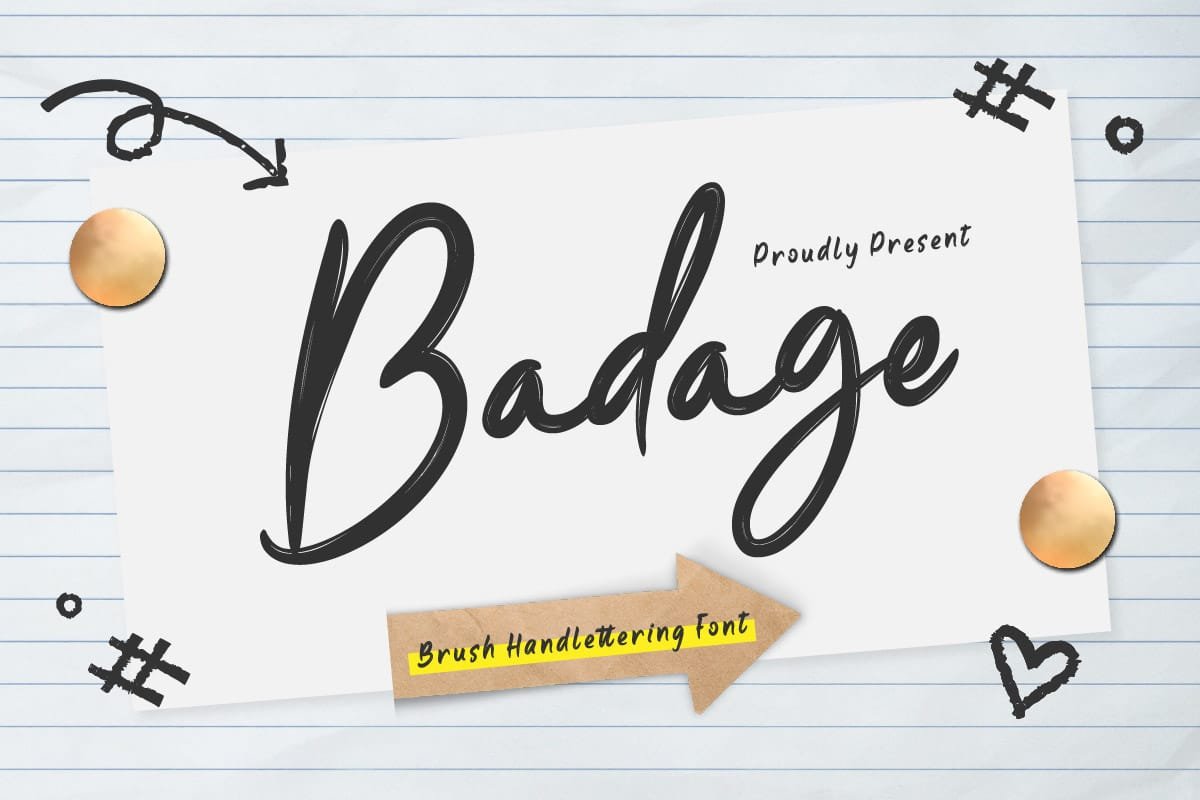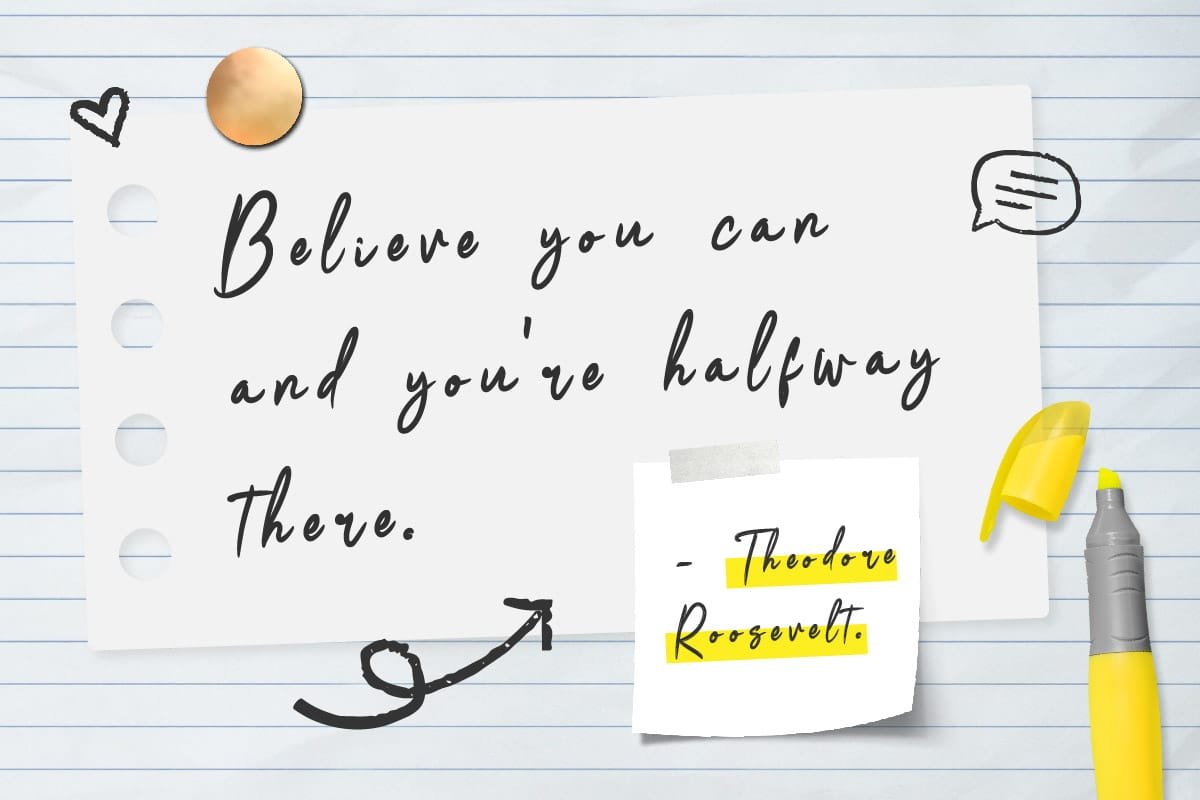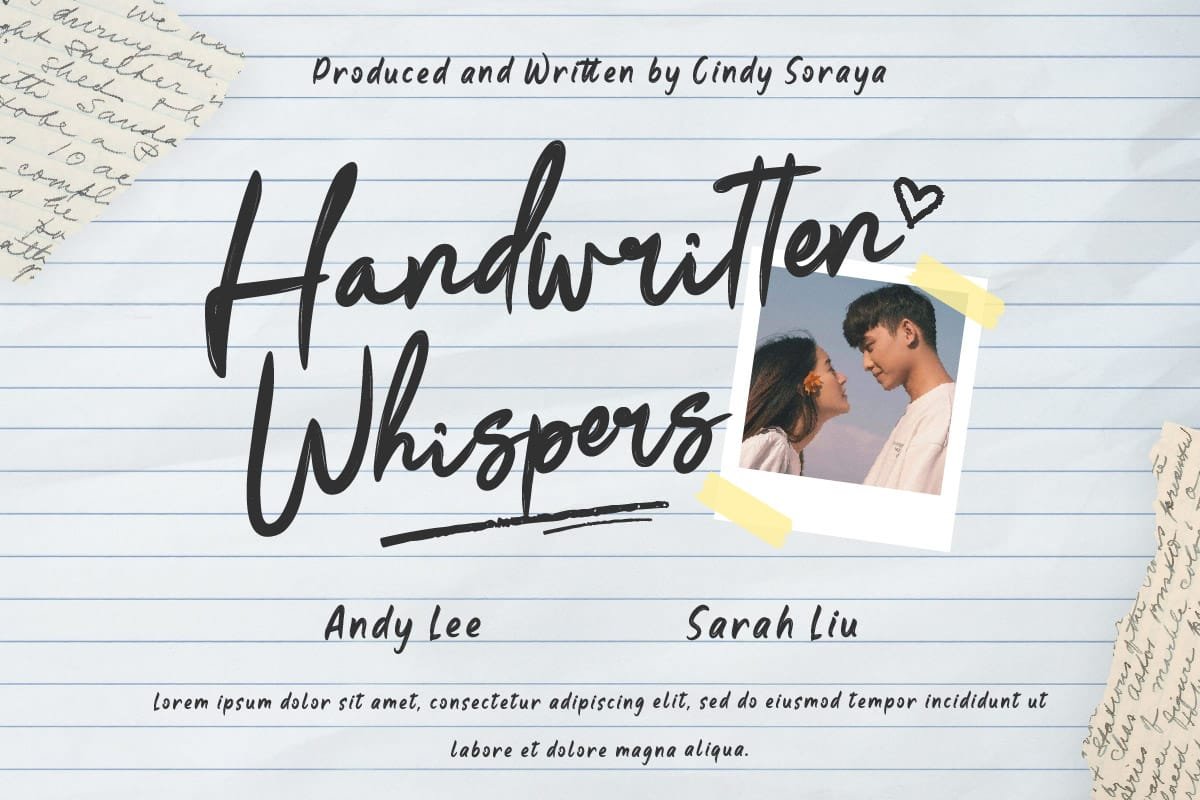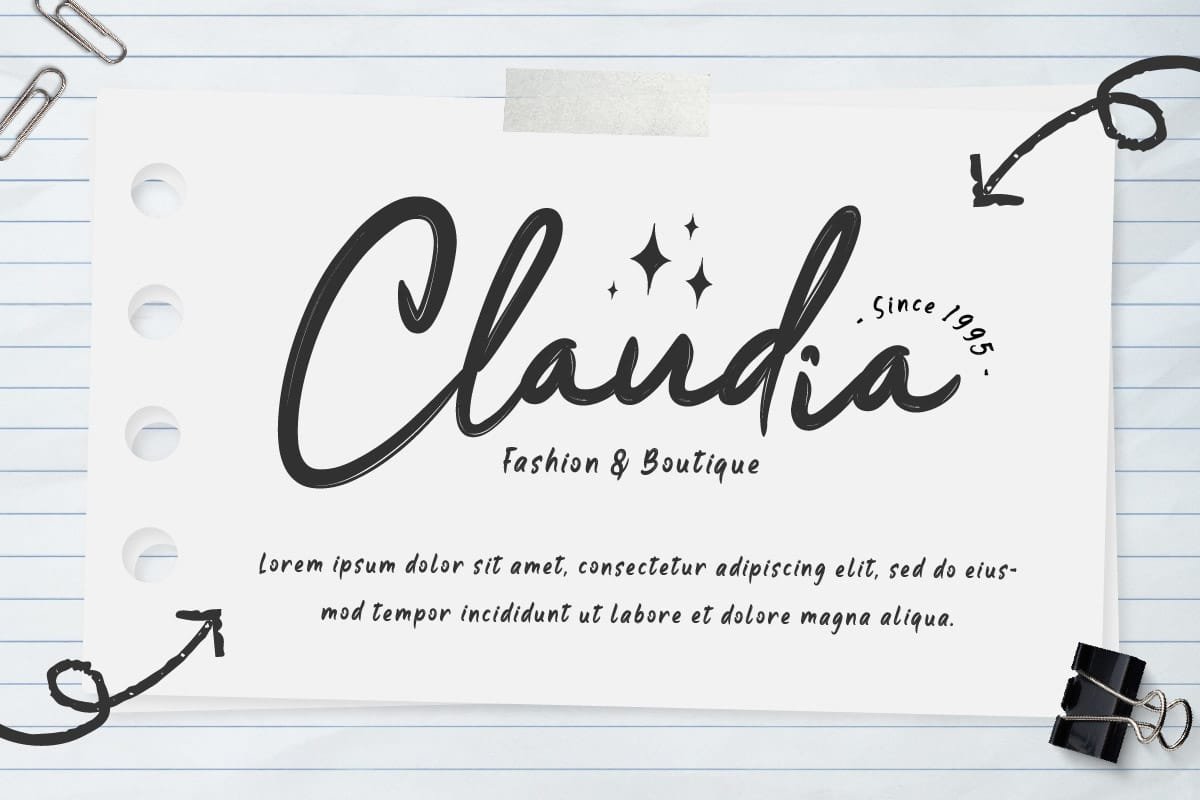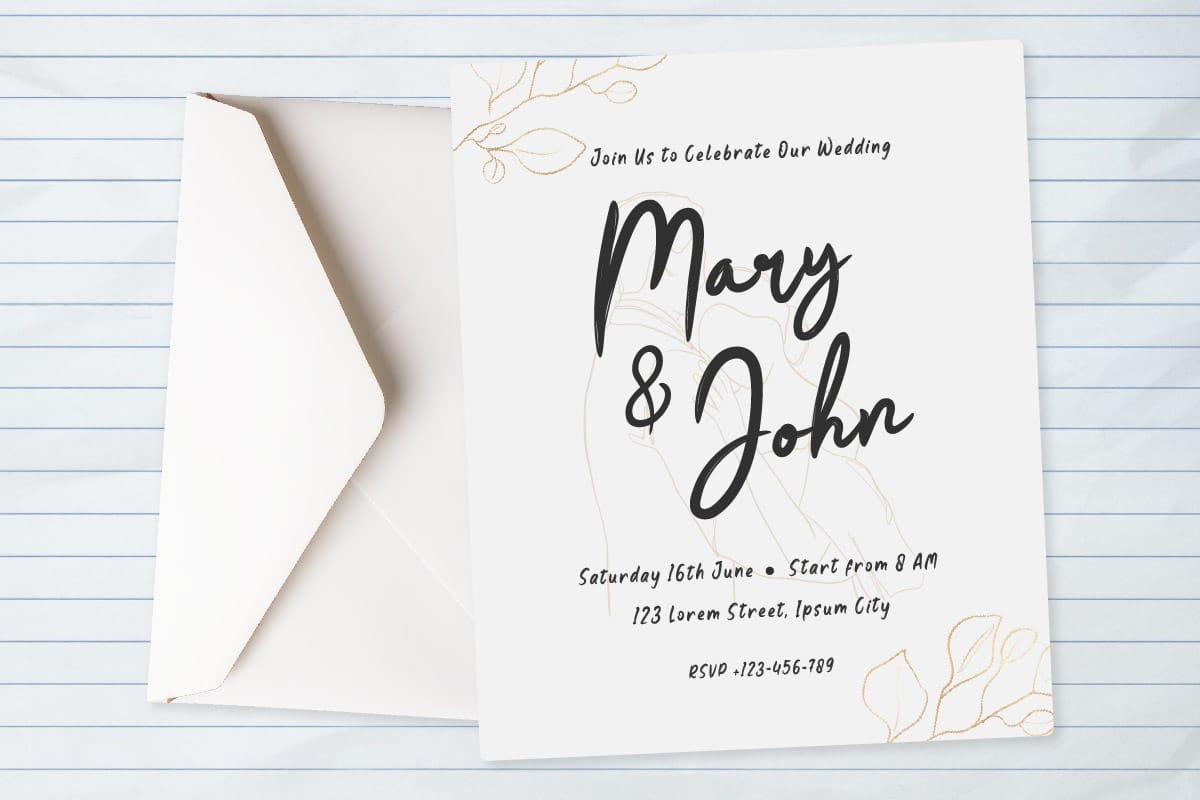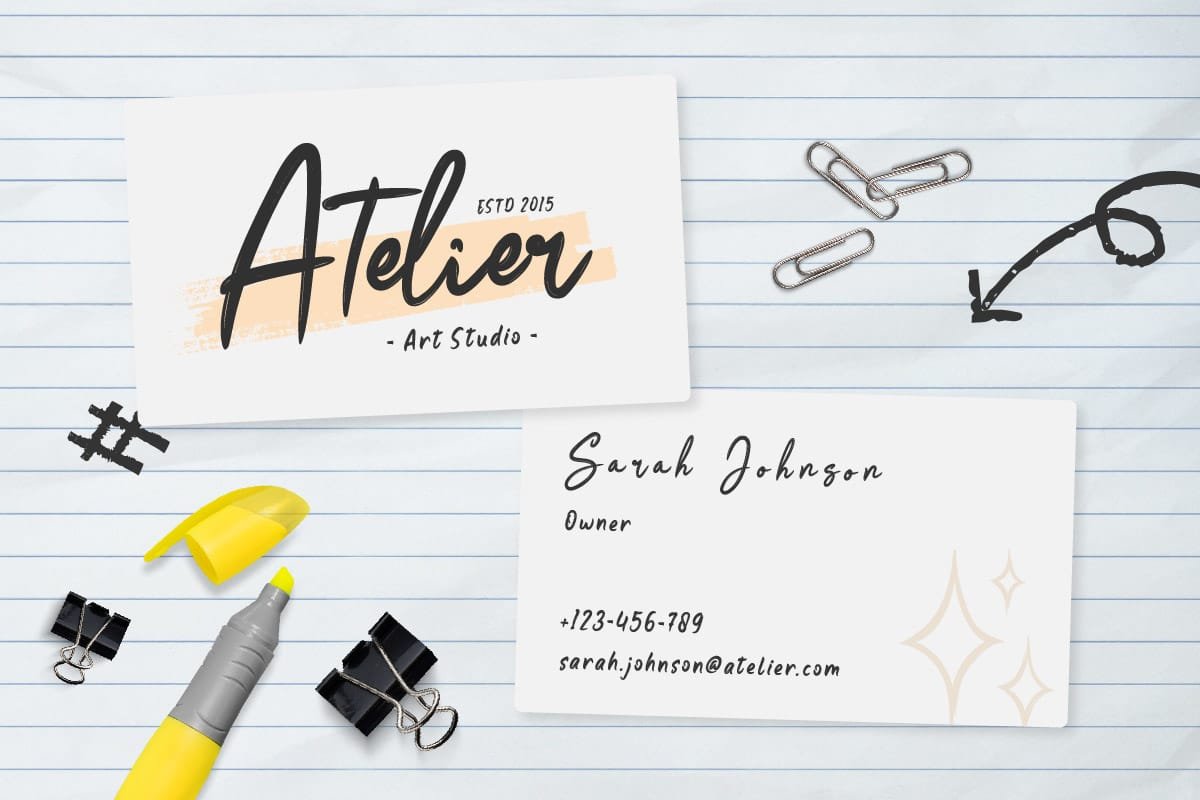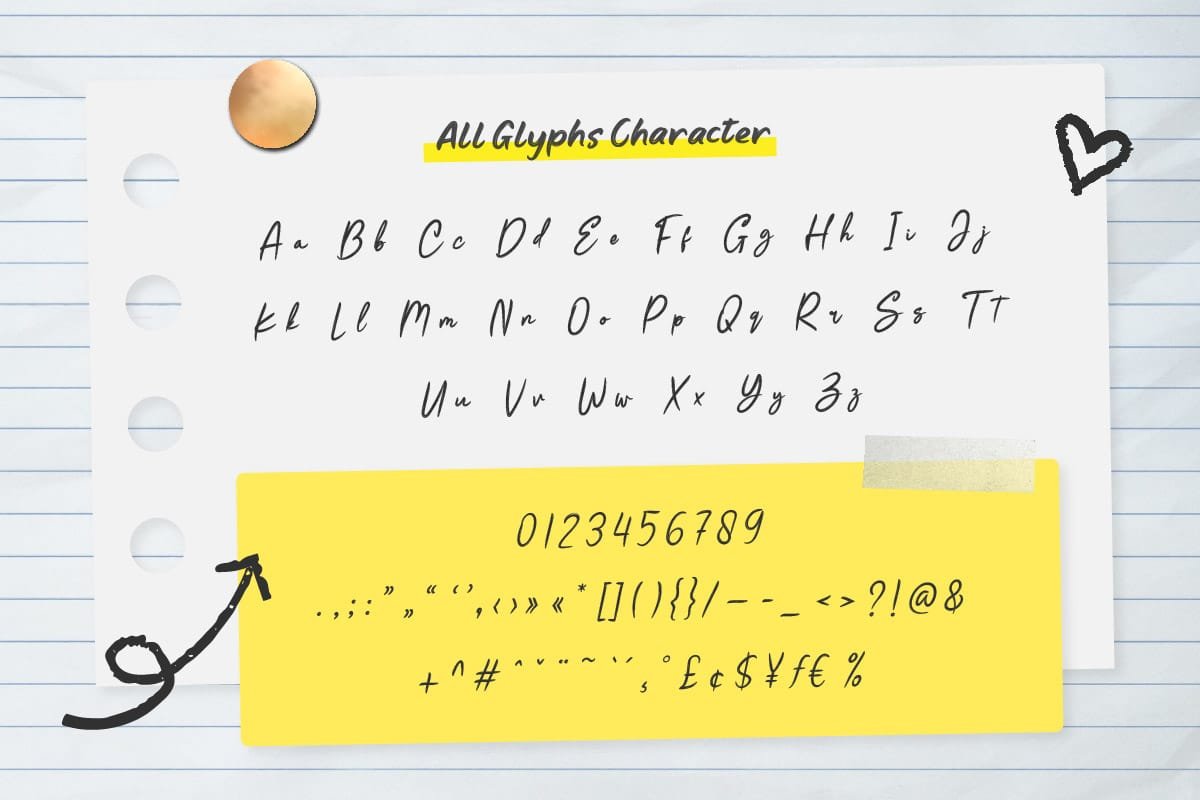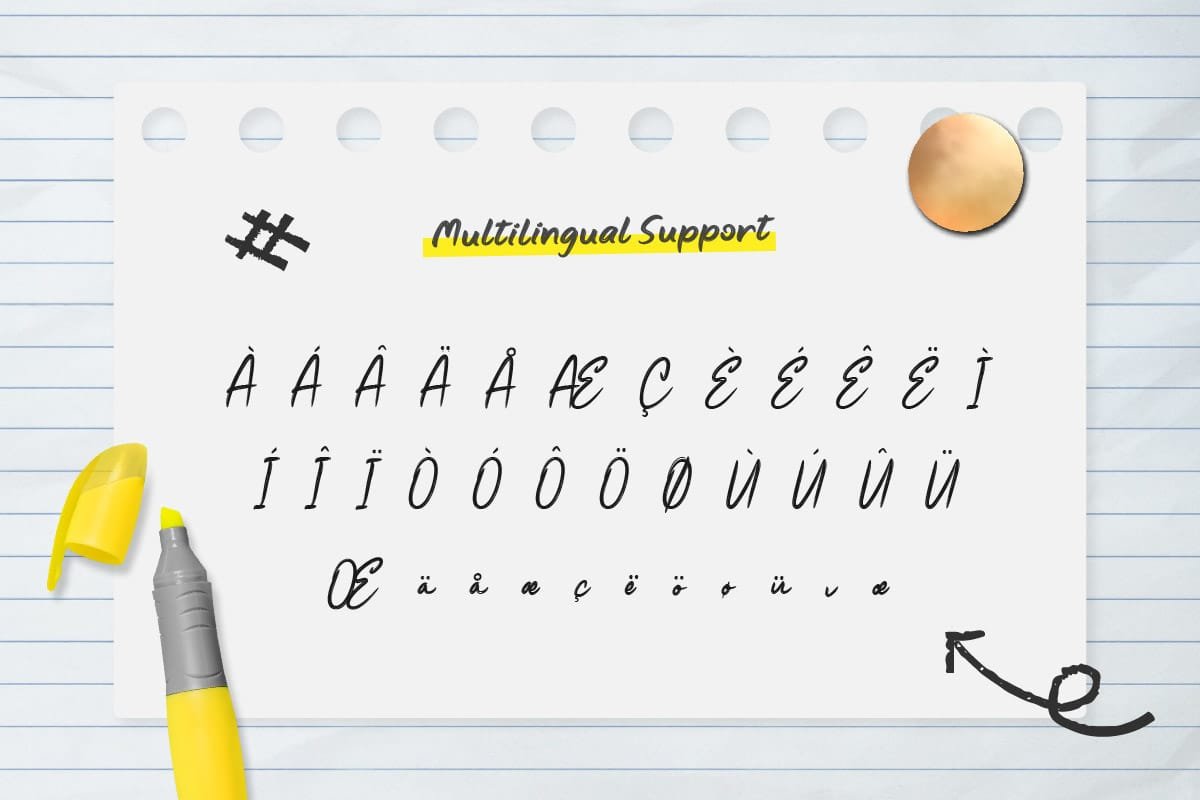
Unleash your creativity and make a bold statement with Badage – Brush Handwritten Font. With its fearless strokes and daring design, Badage commands attention and leaves a lasting impression. Perfect for projects that demand a touch of rebellion and edginess, Badage is ideal for designing bold streetwear branding, fierce event posters, or rebellious social media graphics. With Badage, every design becomes a manifesto of self-expression, empowering you to break free from the norms and stand out from the crowd. Get ready to push the boundaries and unleash your inner rebel with Badage – the font that’s not afraid to break the rules!